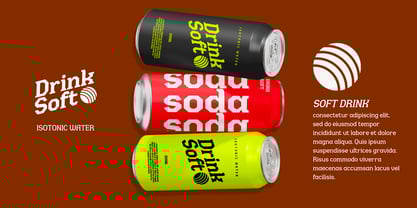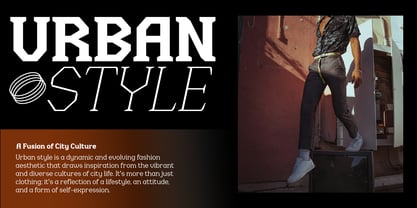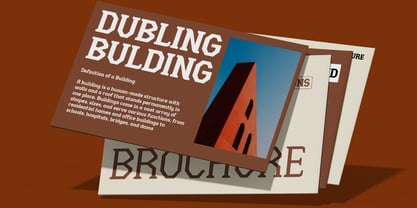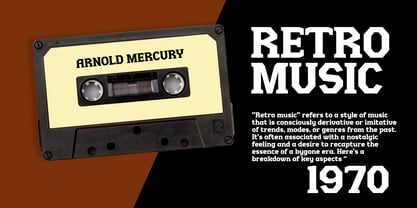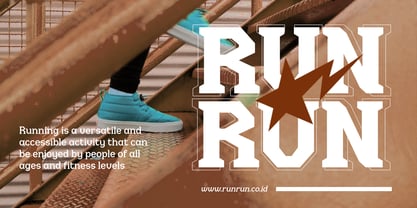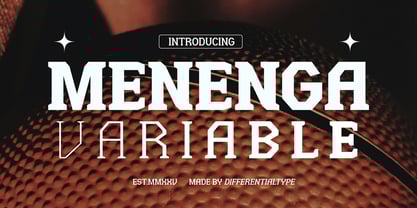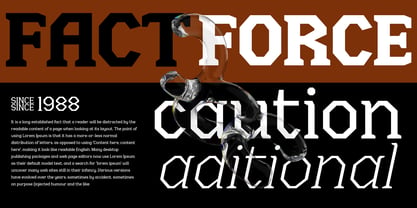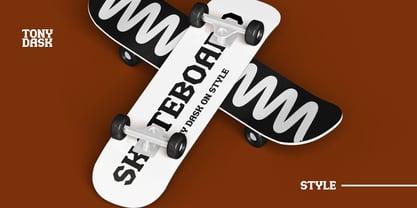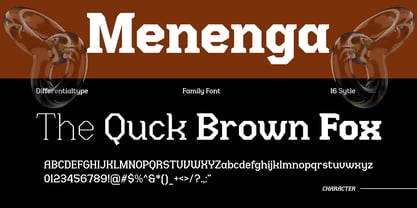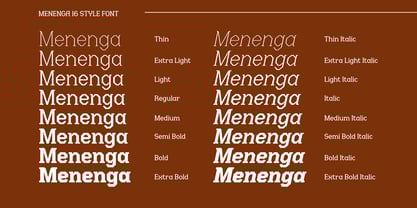
Menenga Variable
by Differentialtype
The Menenga Variable Font Family was designed by Sidik Sidik and published by Differentialtype. Menenga Variable contains 1 styles. More about this family
Introducing Menenga Variable, a cutting-edge serif font family that embodies a futuristic spirit. Boasting an impressive style range, from Thin to Extra Bold, and complemented by elegant Italic variants, Menenga Variable is the ultimate display font for making a bold statement. Perfect for a wide range of applications, including branding, logos, sports, posters, and more, this versatile font family is designed to elevate your designs to new heights, infusing them with a dynamic, high-tech aesthetic that's sure to leave a lasting impression
Designers: Sidik Sidik
Foundry: Differentialtype